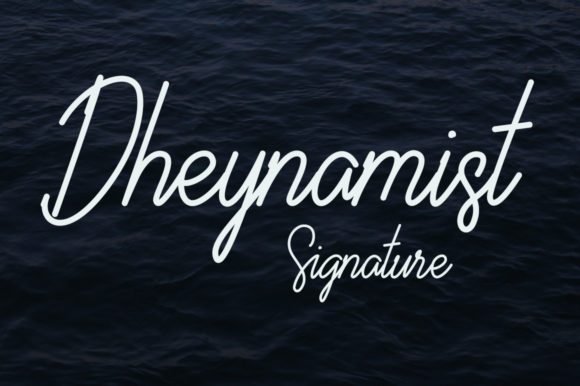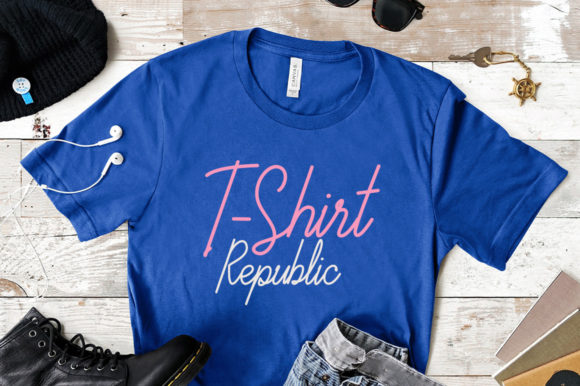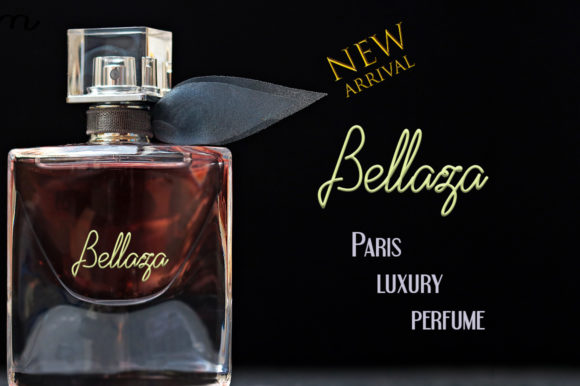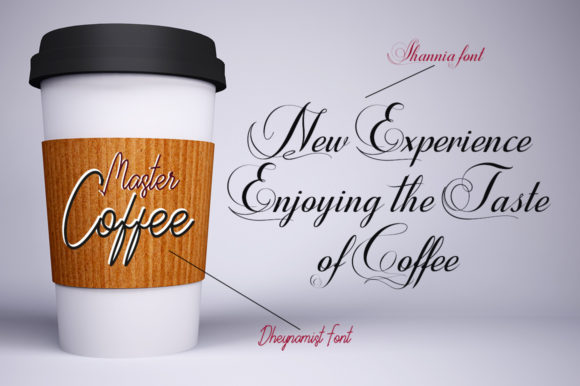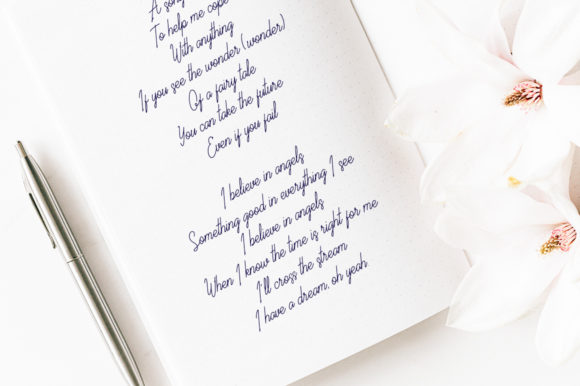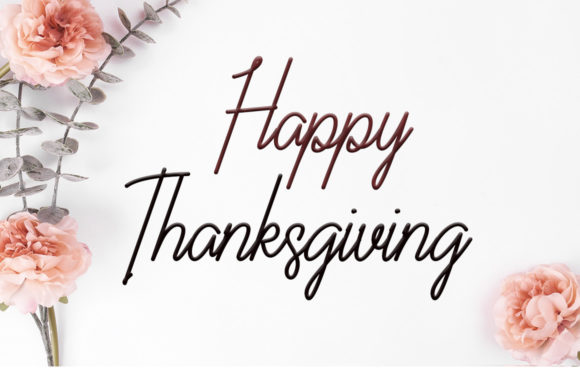
Dheynamist Font
About Dheynamist Font
Dheynamist is a simple monoline script font. It is made for product packaging, invitation cards, T-shirts, scriptwriting works, flyers, poster events, album galleries, and other designs that require high-quality typography.